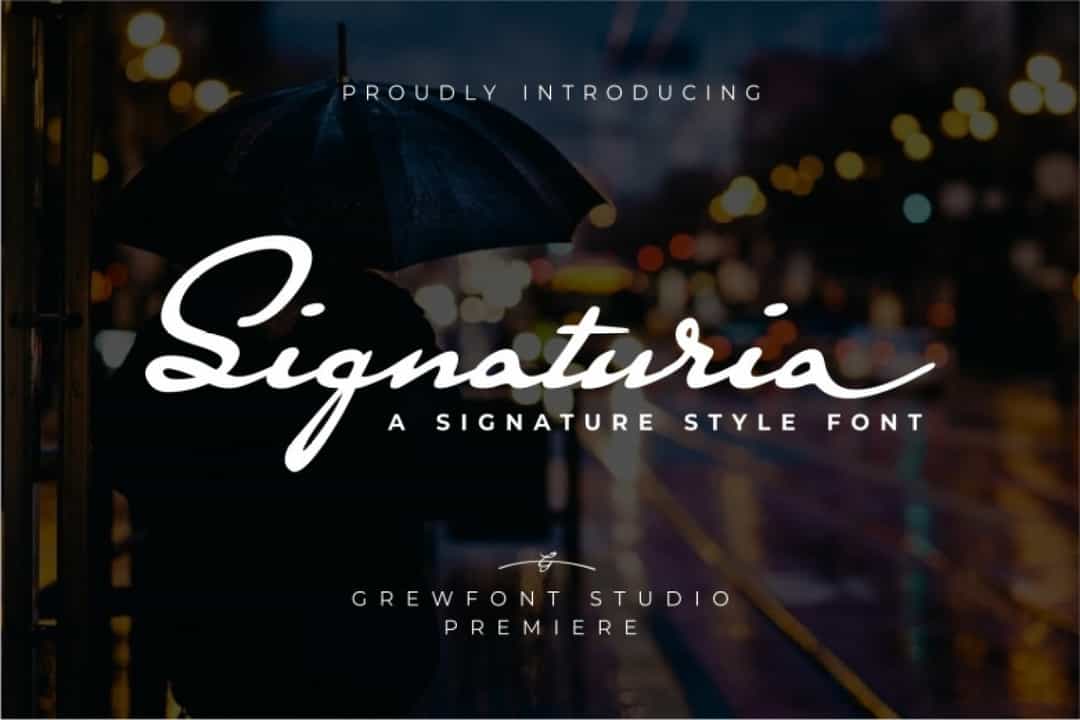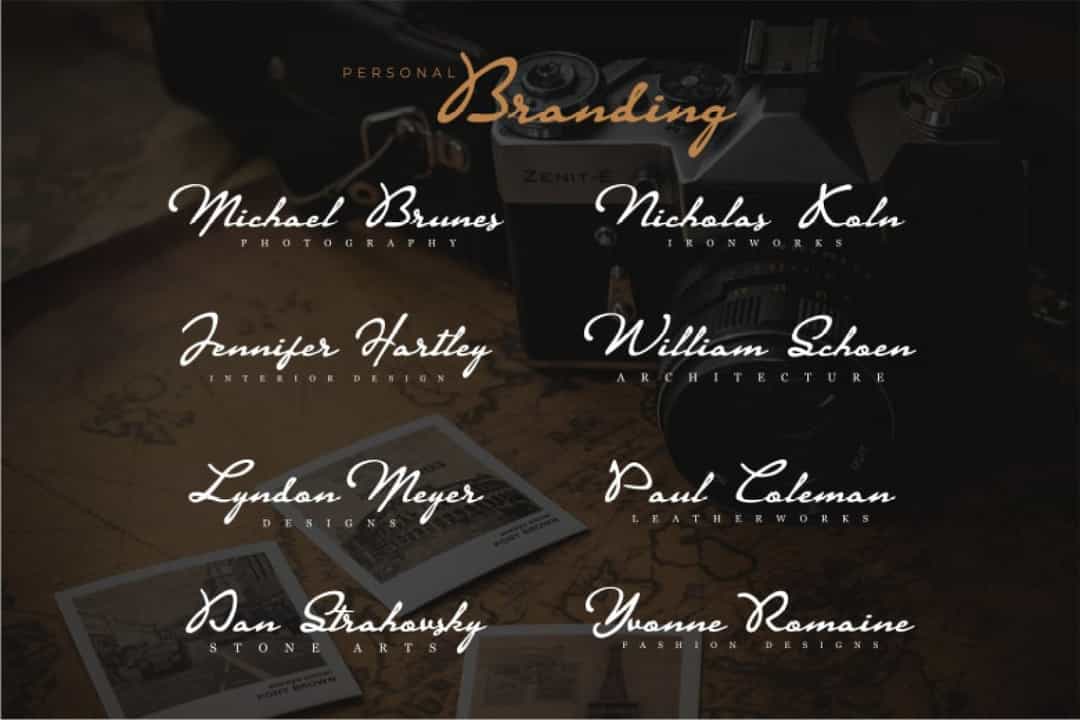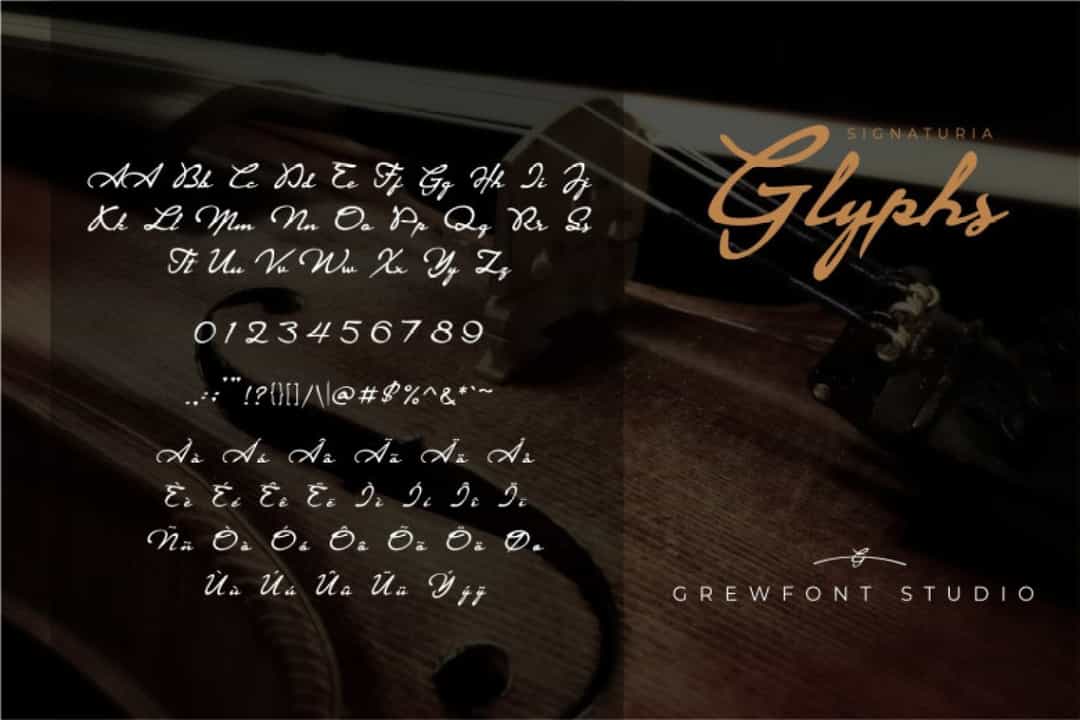
Discover Signaturia Font, part of the Handwritten Script collection—a versatile and unique font perfect for adding a personal touch to your projects. Download it for free and enjoy crafting designs with style, from invitations to social media posts. This font is available exclusively for personal use, giving you the freedom to create without limits. Unlock your creativity with Signaturia Font today!
This font is specifically created to help you create logotypes or lettering logos for your brand or your clients, incorporating all the graphical elements including badges, signs, packaging logos, headline titles, T-shirt/poster logos and many more. possible!